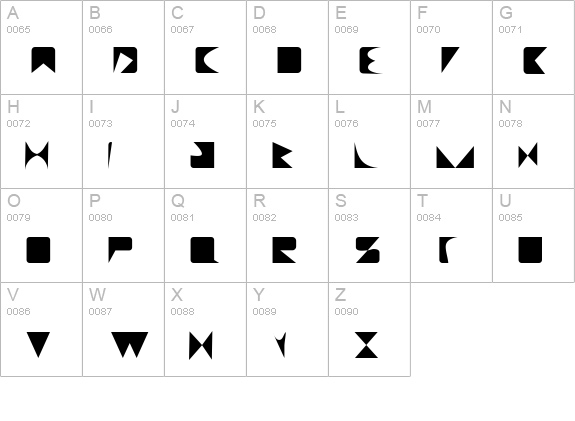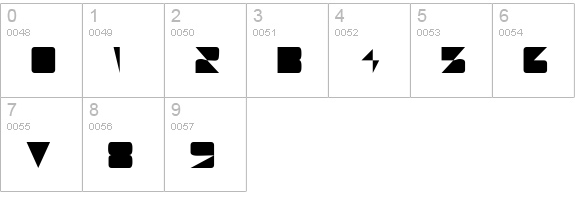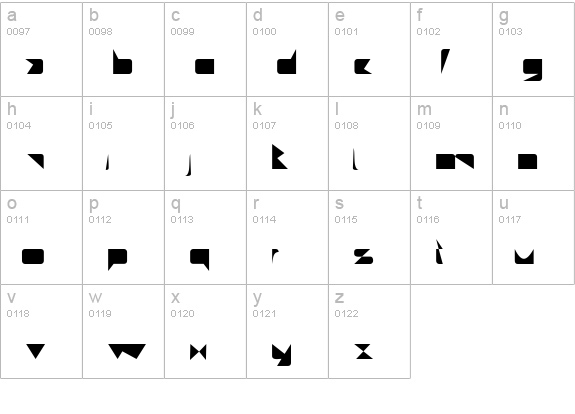
BizarreLapped font is a whimsical and quirky typeface that adds a touch of eccentricity to any project. With its unique and playful design, this font is sure to make a statement and stand out from the crowd. The irregular shapes and uneven lines give BizarreLapped a charming and offbeat feel that is perfect for adding a touch of personality to your designs. And the best part? BizarreLapped font is completely free to download at FontsMarket.com! You can easily access this fun and eye-catching font to use in your projects without any cost. So why wait? Add a dash of the unexpected to your designs with BizarreLapped font today!